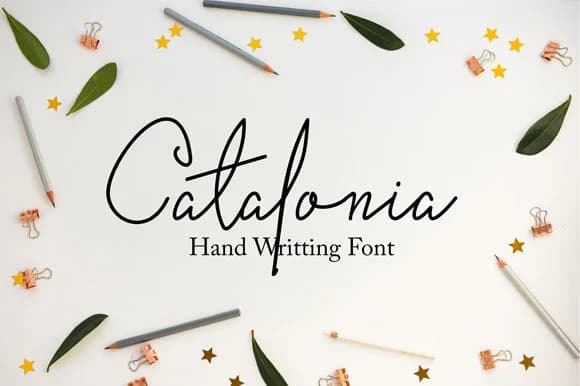
This handwritten script carries genuine warmth without feeling overly formal or precious. Catalonia, created by Dieza Art, blends natural pen strokes with a clean, contemporary edge, offering just the right balance for designers seeking something that feels personal yet professionally refined.
Handwritten scripts like this really shine on wedding invitation suites, where couples want personality that stands apart from standard printing and engraving. Event save-the-dates and greeting card designs naturally benefit from its approachable, flowing letterforms. Small brands often reach for fonts like this when designing boutique skincare packaging or artisanal food labels, where the handmade story carries real weight and authentic charm. The letterforms work equally well for website headers and design elements where you need a human touch without sacrificing readability. Even Instagram graphics and social media post imagery feel more genuine and connected when rendered in Catalonia's naturalistic strokes. The character here lives in the tension between casual handwriting and refined spacing, giving you precise control over how polished or relaxed a final design reads.
Catalonia Font is a script font that shines as a display or heading face. Pair it with a clean sans-serif or serif font for body text β the contrast creates a clear hierarchy while the two styles stay balanced and easy to read.
Catalonia Font
by Dieza Art